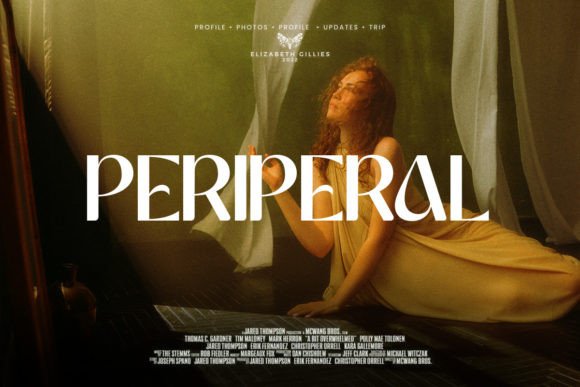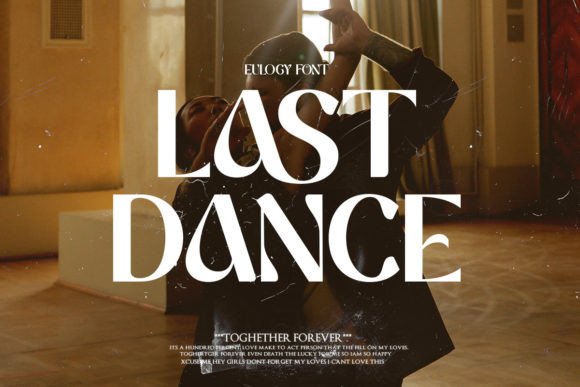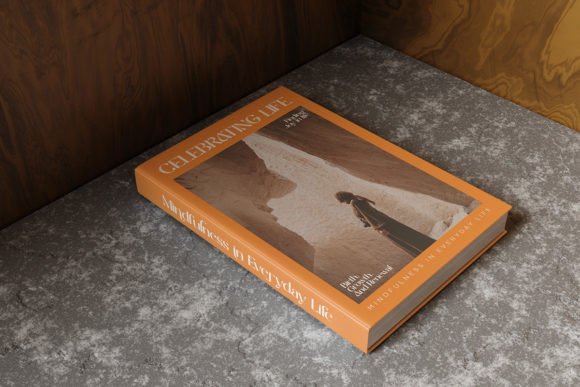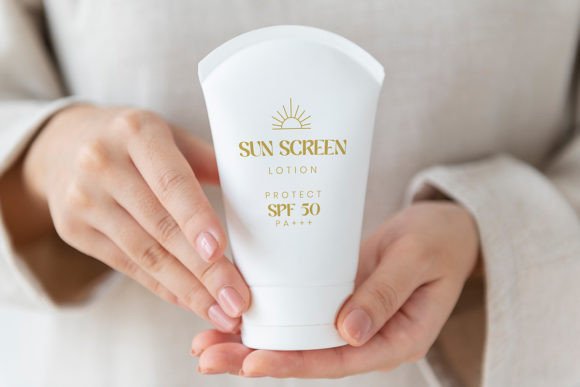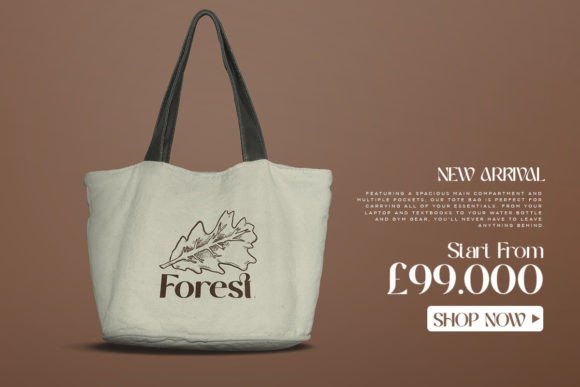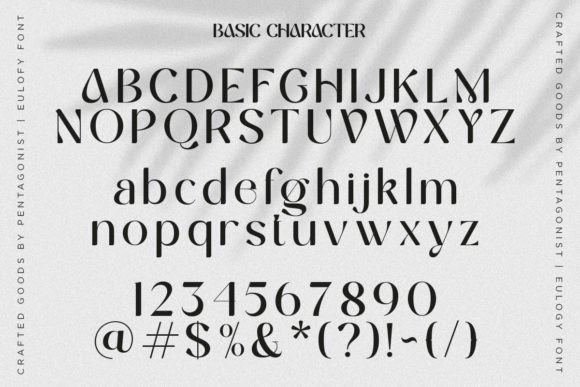
A Touch of Elegance: Unveiling the Eulogy Font
Have you ever found yourself pouring over a beautifully crafted design, trying to pinpoint the secret to its timeless appeal? For many designers, it’s the subtle nuances of typography that make all the difference. A perfectly chosen font can elevate a project from mere aesthetics to true artistry.
Enter the Eulogy Font, a breathtaking serif font that embodies the essence of luxury and sophistication. With its intricate curves and delicate serifs, Eulogy is the perfect choice for high-end branding, editorial design, or any project that demands a touch of refinement. As a PUA encoded font, Eulogy Font offers effortless access to all glyphs and swashes, giving designers the freedom to unleash their creativity.
Whether you’re a seasoned pro or just starting out, the Eulogy Font is an invaluable addition to any design toolkit. Its versatility and elegance make it an ideal choice for a wide range of projects, from sleek corporate identities to elegant editorial layouts.
Eulogy Font Key Features
- Font Family: Eulogy is a high-end serif font designed for formal and elegant typography. It features a classic, sophisticated look with a modern twist.
- Character Set: Eulogy includes a wide range of characters, including Latin, Cyrillic, and Greek alphabets, as well as various punctuation marks and symbols.
- Unique Characteristics: Eulogy features a unique combination of elegant lines, subtle curves, and precise spacing, making it ideal for formal documents, books, and magazines.
- Font Weight: Available in three font weights: Light, Regular, and Bold, allowing for flexibility in typography and design.
Eulogy Font Review
As a designer, I was intrigued by the Eulogy Font, and I decided to dive in and see what it has to offer. ✨ One of the first things that caught my attention was the beautiful, elegant look of the font. It’s perfect for creating a sophisticated and refined atmosphere in any design project.
Here are some of the features that I think work well:
- ✨ High-quality design: The font is well-crafted and has a unique touch to it.
- ✨ Versatility: Eulogy Font can be used for a variety of projects, from elegant invitations to beautiful book covers.
- ⚠️ Limited character set: The font doesn’t include a wide range of special characters and symbols.
- ⚠️ Limited language support: Eulogy Font is primarily designed for English and may not be suitable for projects that require multilingual support.
Overall, I think Eulogy Font is a great addition to any designer’s toolkit. While it may have some limitations, its unique design and versatility make it a great choice for a wide range of projects. With a little creativity and planning, you can overcome the limitations and create truly stunning designs with Eulogy Font.
Tips for Getting the Most Out of Eulogy Font
For a more dramatic effect, use the Eulogy Font in bold or italic style. Experiment with different font sizes to create visual hierarchy. Pair the Eulogy Font with other elegant fonts for a sophisticated look.
The Eulogy Font is ideal for creating elegant invitations, formal event programs, and wedding stationery. It can also be used for creating a vintage or antique look in designs related to history, literature, or art.